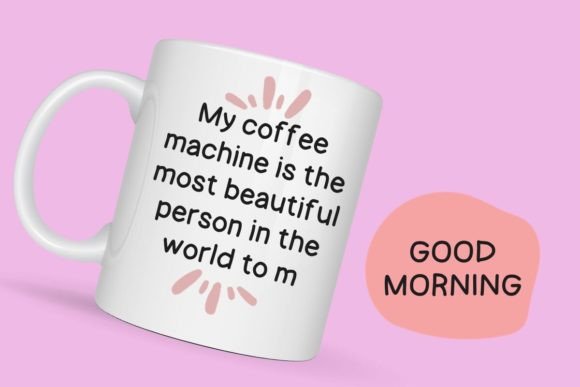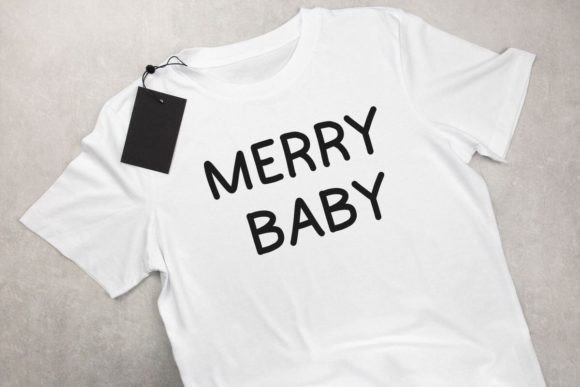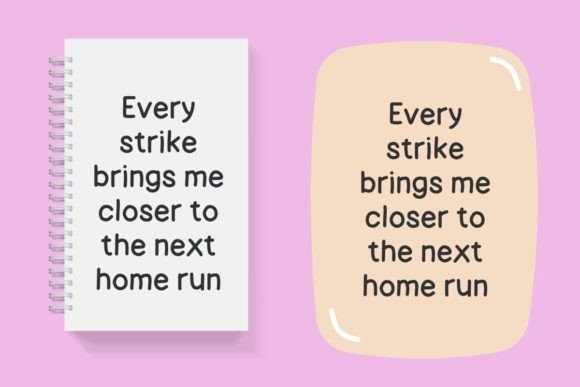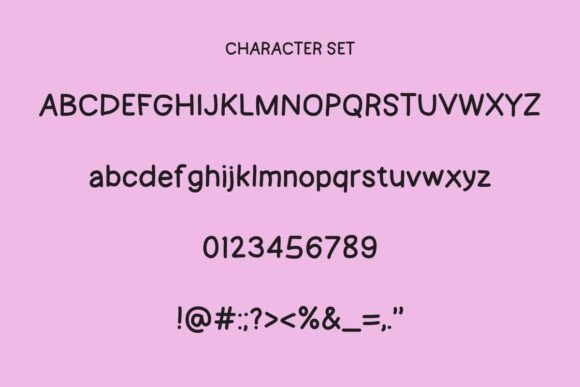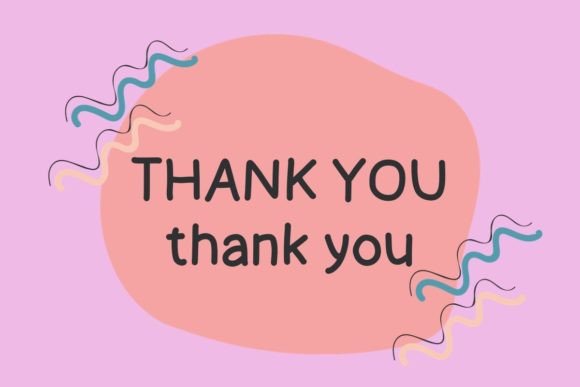
Introduction to Simple Monoline Font
Simple Monoline is designed in a playful and friendly handwritten sans serif font style.
It would be awesome to your fun projects or diary planner Let’s try it to your perfect projects such as Easter, back to school, wedding, party decoration, invitations, Fall, Halloween, Christmas, posters, blogs, clothing, child-related designs, greeting cards, social media posts or anything that needs a friendly touch.
Key Features of Simple Monoline Font